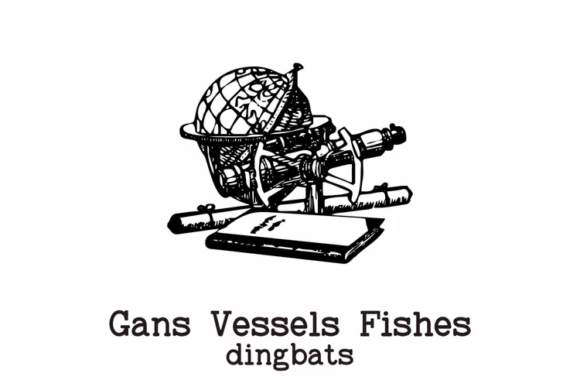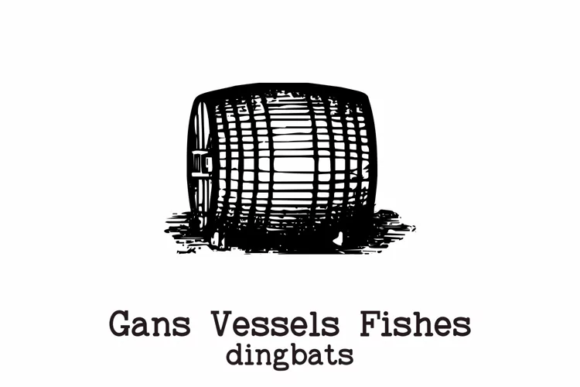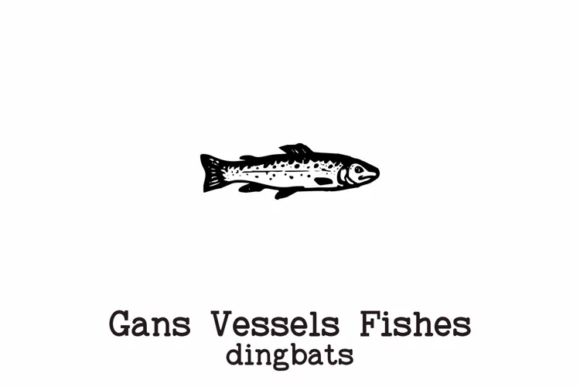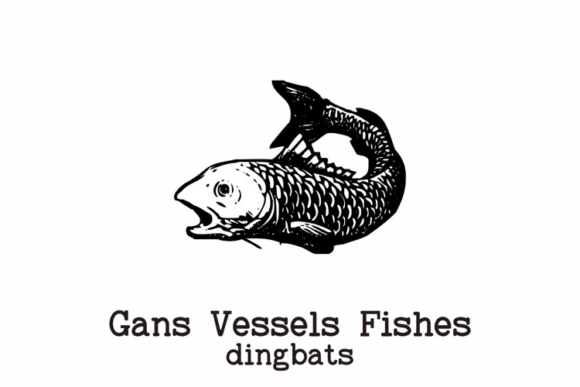
Gans Vessels Fishes Font: A Treasure Trove of Nautical and Sea Dingbats
Are you a designer or crafter looking for a unique and fascinating font to add to your collection? Look no further than the Gans Vessels Fishes Font, a treasure trove of nautical and sea dingbats from the classic Spanish Fundicion Gans. This font is a true gem, offering a vast array of vessel and fish illustrations that will transport you to the high seas.
A Brief History of Fundicion Gans
Fundicion Gans was a renowned Spanish type foundry that operated from the late 19th century to the mid-20th century. During its heyday, the foundry produced a wide range of fonts, including the Gans Vessels Fishes Font, which was designed to meet the growing demand for nautical and sea-themed illustrations. The font was intended for use in various applications, including advertising, packaging, and editorial design.
The Gans Vessels Fishes Font: A Treasure Trove of Nautical Illustrations
The Gans Vessels Fishes Font is a comprehensive collection of dingbats, featuring a vast array of vessel and fish illustrations. The font includes over 100 unique glyphs, each meticulously crafted to showcase the beauty and diversity of nautical and sea life. From sailing ships and steamboats to fish and sea monsters, this font has everything you need to create stunning nautical-themed designs.
What Makes the Gans Vessels Fishes Font So Special?
So, what sets the Gans Vessels Fishes Font apart from other fonts? Here are just a few reasons why this font is a must-have for designers and crafters:
- Unique and Authentic Illustrations: Each glyph in the Gans Vessels Fishes Font is a unique and authentic illustration, carefully crafted to capture the essence of nautical and sea life.
- Vintage Charm: The font’s vintage origins give it a charming, nostalgic feel that’s perfect for creating designs with a retro or classic look.
- Versatility: With over 100 glyphs to choose from, the Gans Vessels Fishes Font is incredibly versatile, making it suitable for a wide range of design applications.
Using the Gans Vessels Fishes Font in Your Designs
The Gans Vessels Fishes Font is perfect for a variety of design applications, including:
- Stationery and Paper Crafts: Add a touch of nautical flair to your stationery, cards, and paper crafts with this beautiful font.
- Graphic Design: Use the font to create stunning graphics, logos, and icons for your clients or personal projects.
- Web Design: Add a splash of color and whimsy to your website with this eye-catching font.
- Illustration: Use the font as a starting point for your own illustrations, or combine it with other fonts and graphics to create unique and captivating artwork.
In conclusion, the Gans Vessels Fishes Font is a true treasure trove of nautical and sea dingbats, offering a unique and fascinating collection of illustrations that will inspire and delight designers and crafters. With its vintage charm, versatility, and ease of use, this font is a must-have for anyone looking to add a touch of nautical flair to their designs. So why wait? Dive in and explore the wonders of the Gans Vessels Fishes Font today!
Tips and Tricks for Using the Gans Vessels Fishes Font
Here are a few tips and tricks to help you get the most out of the Gans Vessels Fishes Font:
- Experiment with Different Sizes and Colors: Don’t be afraid to experiment with different sizes and colors to create visually striking designs.
- Combine with Other Fonts: Combine the Gans Vessels Fishes Font with other fonts and graphics to create unique and captivating artwork.
- Use as a Starting Point: Use the font as a starting point for your own illustrations, or combine it with other fonts and graphics to create something entirely new.
With its rich history, unique illustrations, and versatility, the Gans Vessels Fishes Font is a true gem that deserves to be rediscovered by designers and crafters around the world. Whether you’re looking to create stunning nautical-themed designs or simply want to add a touch of vintage charm to your projects, this font is sure to delight.